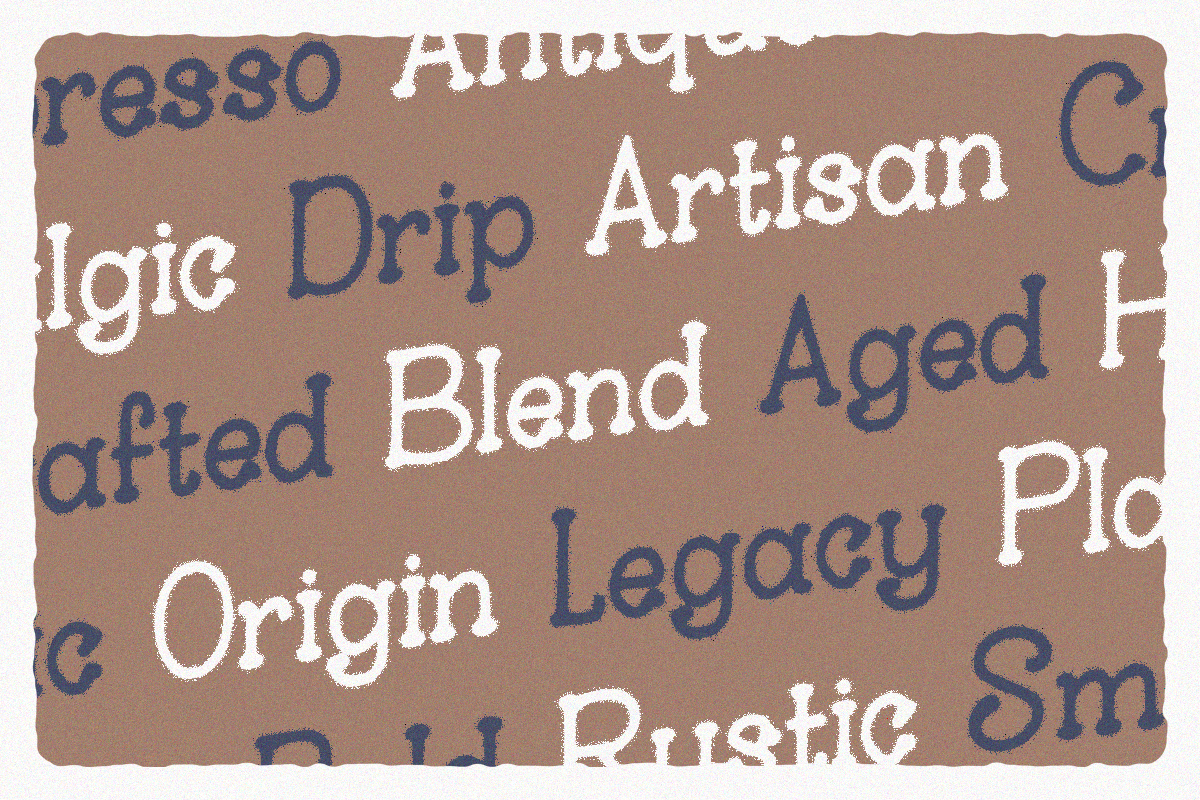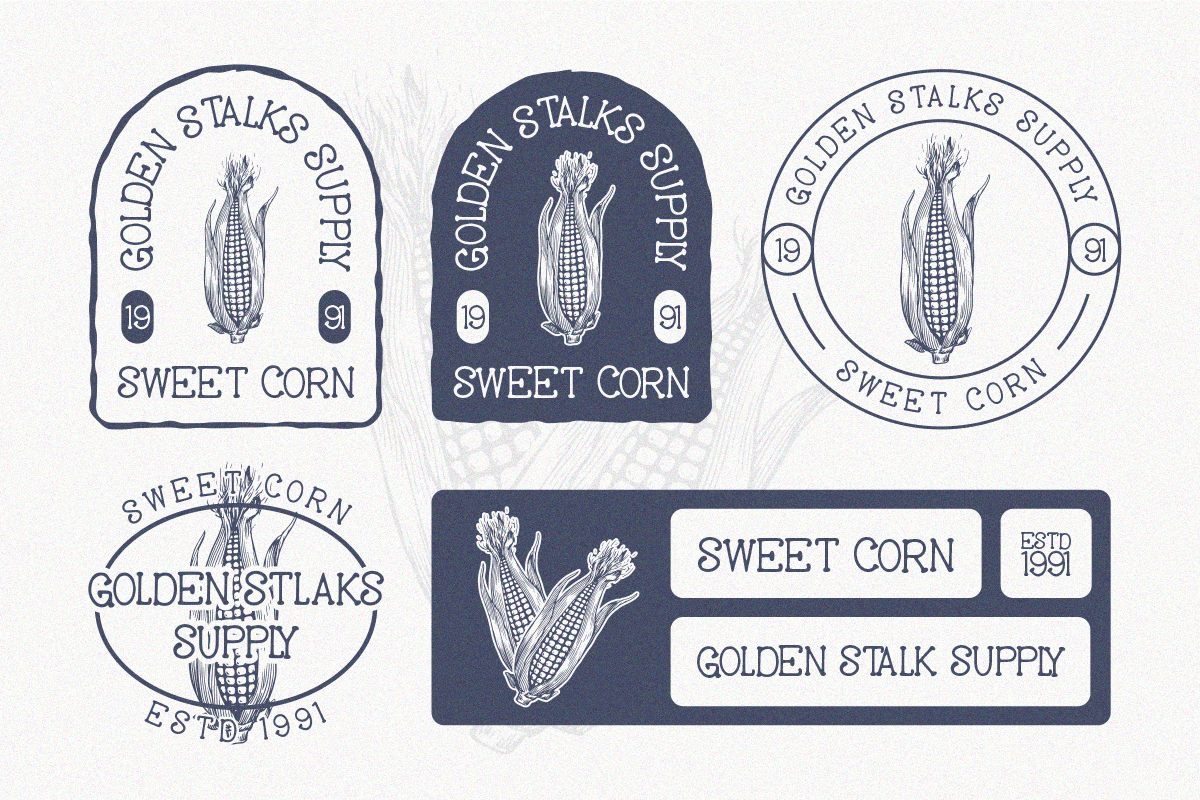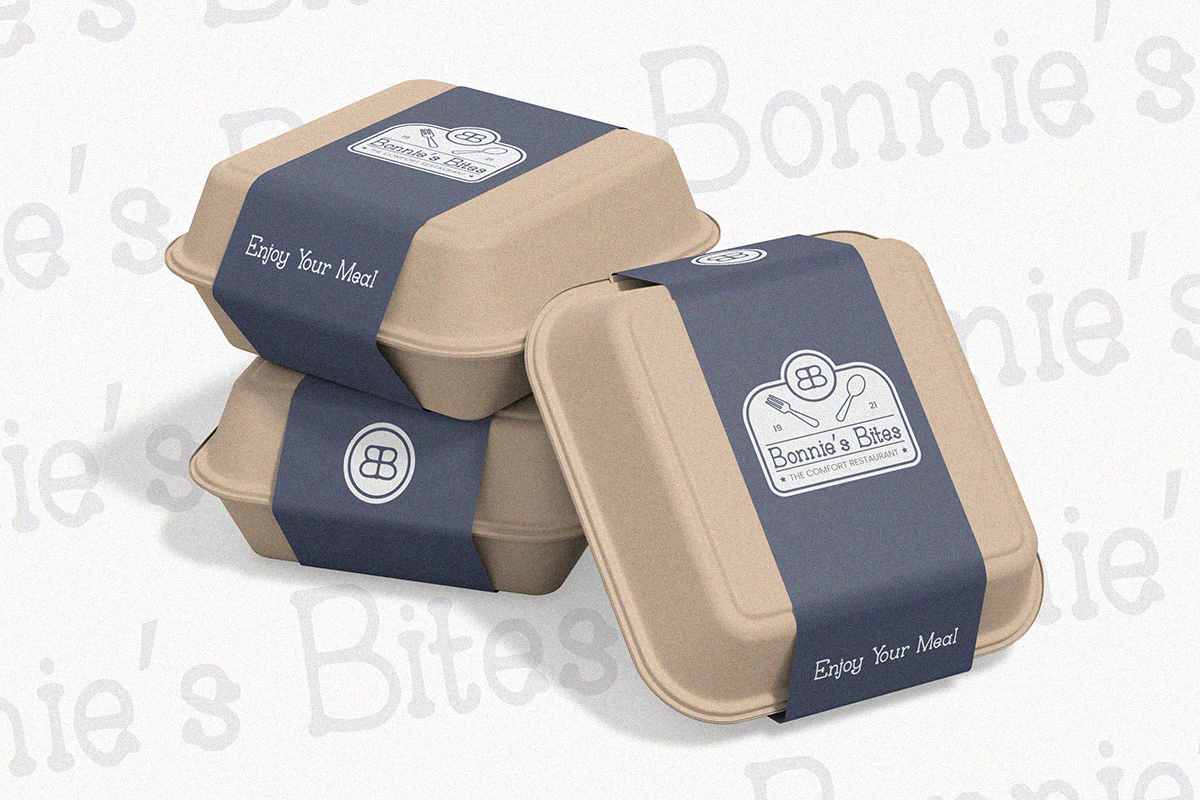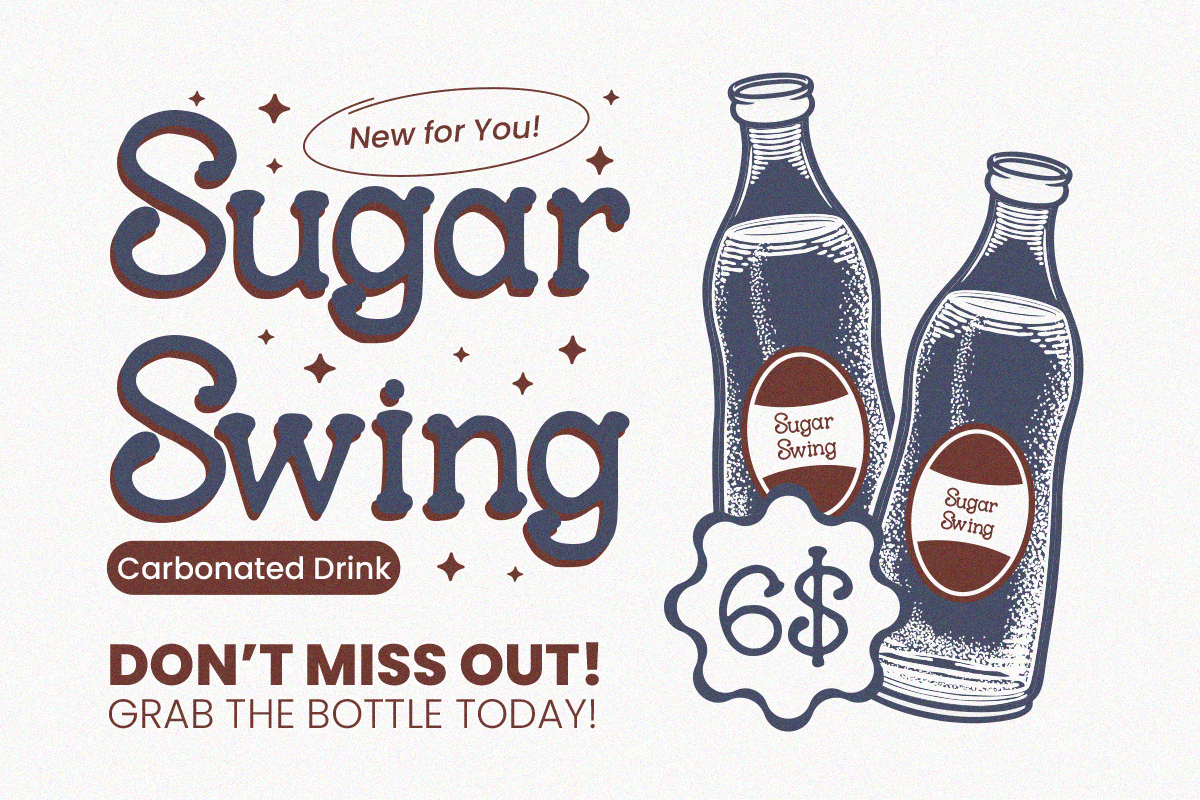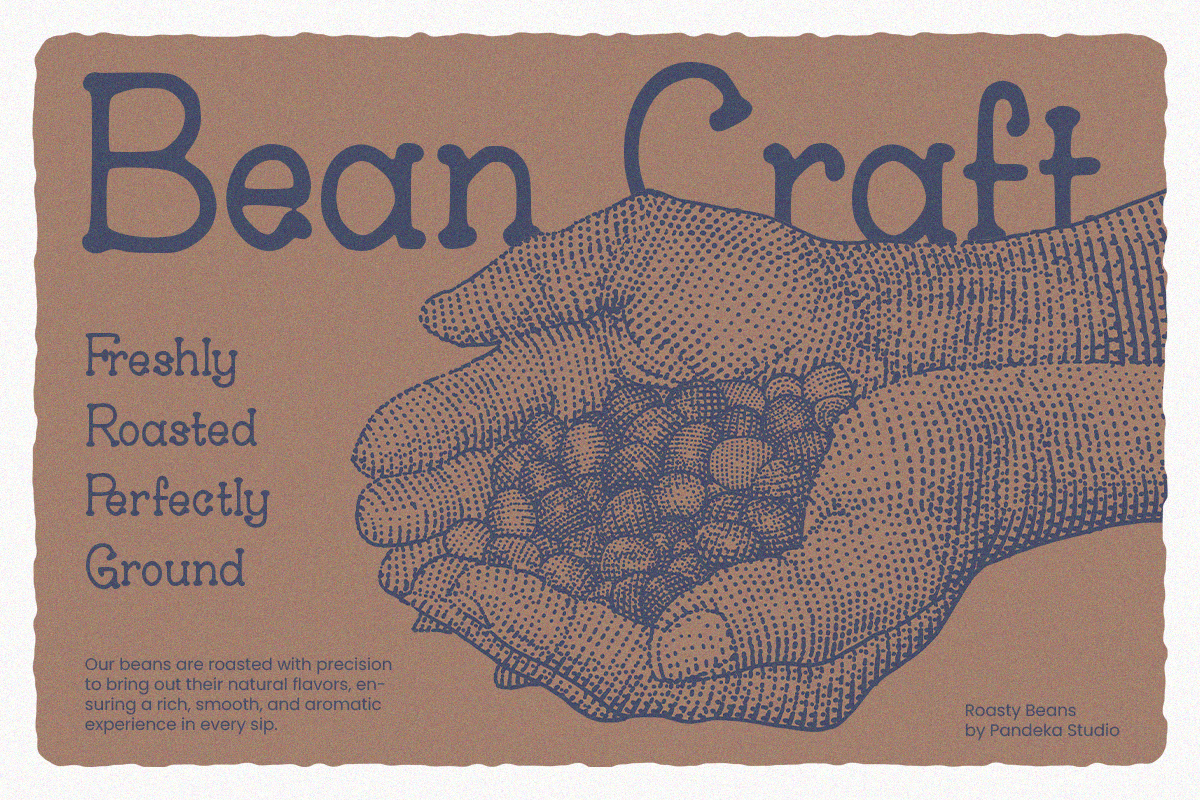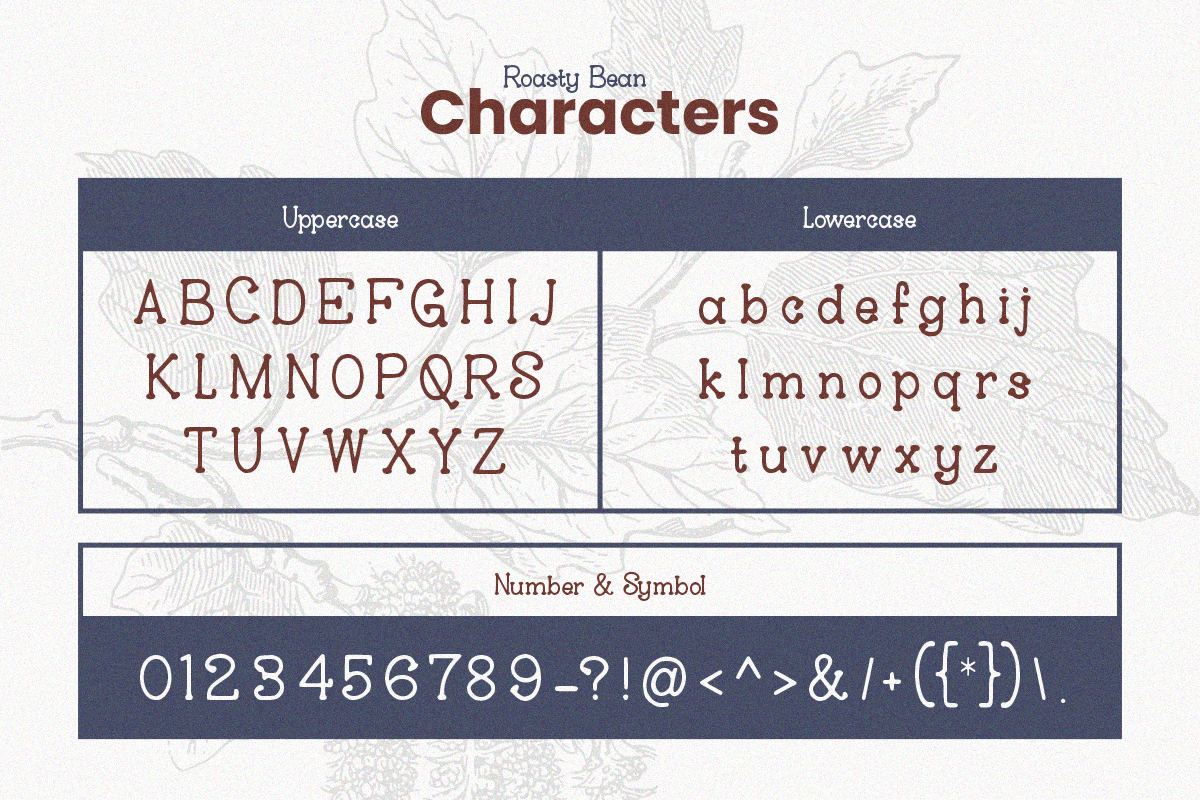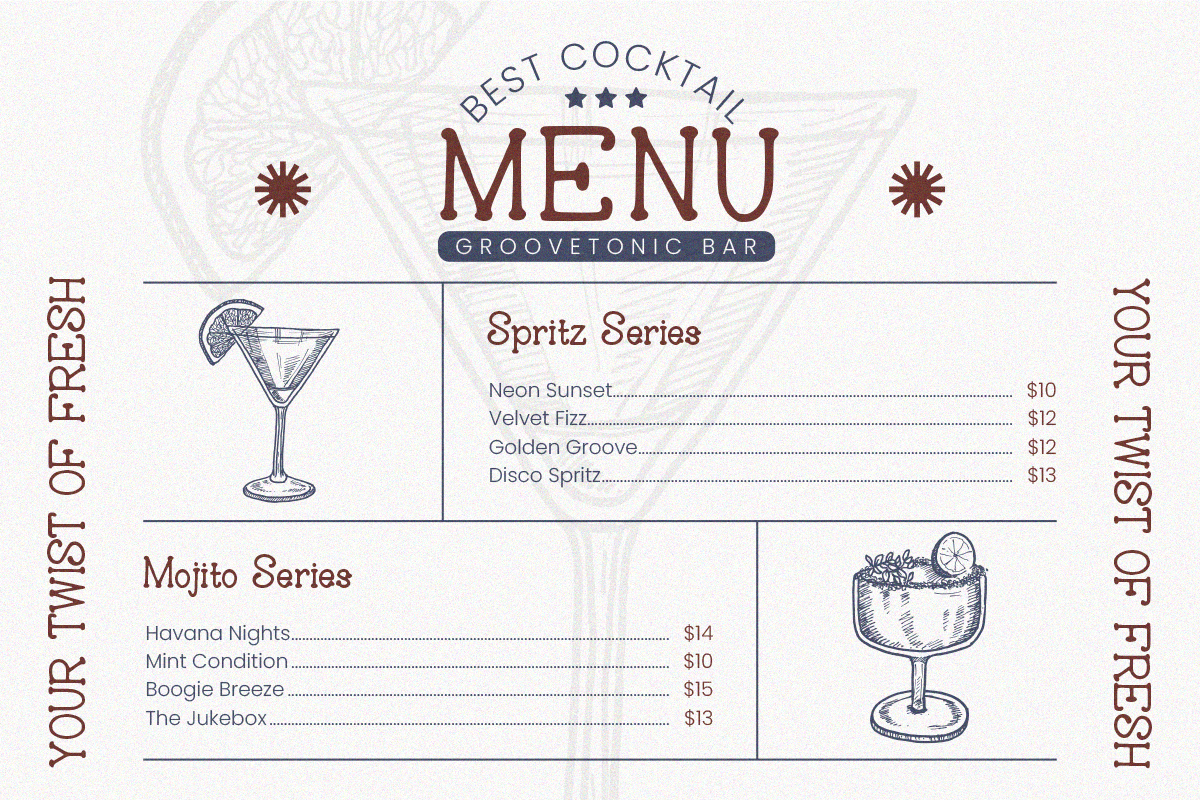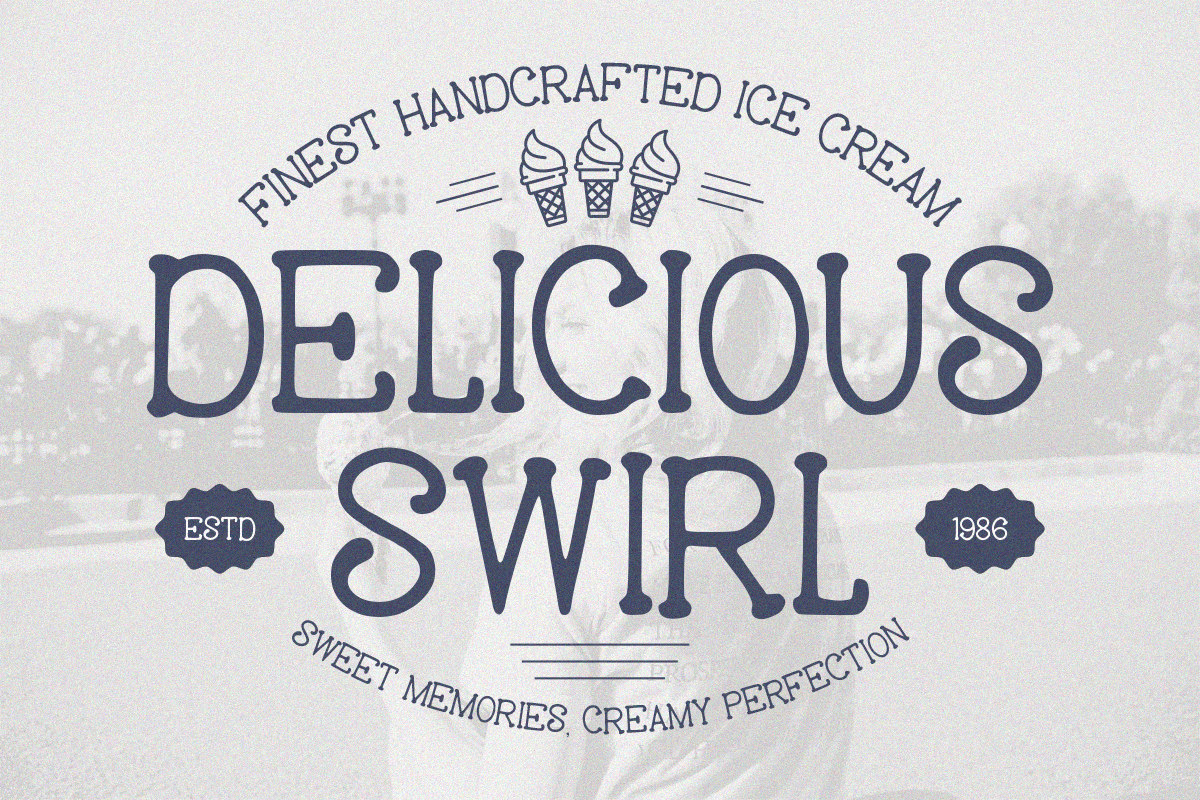
Roasty Beans - Classic Serif Vintage
Roasty Beans – Vintage Bold Serif Typeface
Roasty Beans is a classic serif font with a retro aesthetic and hand-drawn charm, inspired by vintage coffee shop designs. With its bold typography and rustic elegance, this font is perfect for café branding, menus, packaging, book covers, signage, and retro-themed designs.
☕ Bring timeless warmth and character to your projects with Roasty Beans!